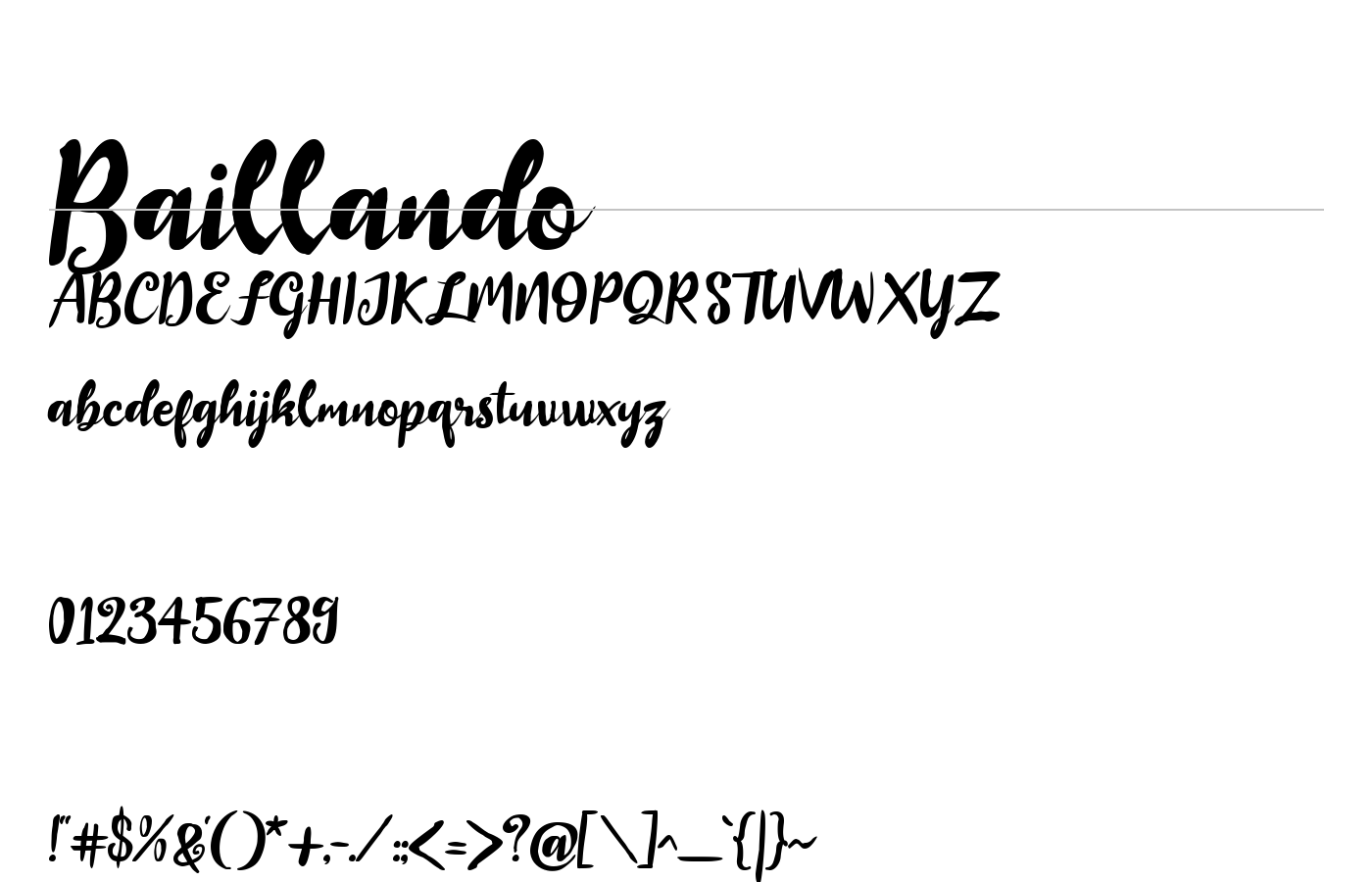
Baillando is a lively script font with a bold, brush-like appearance that combines playful elegance with a casual, handwritten feel. Its moderately high x-height and varying stroke weights give it a dynamic, energetic look, making it ideal for branding, packaging, and headlines where a friendly yet stylish impression is desired. This font works well for creative projects that want to convey warmth and personality without sacrificing readability.
Baillando Font
About Baillando Font